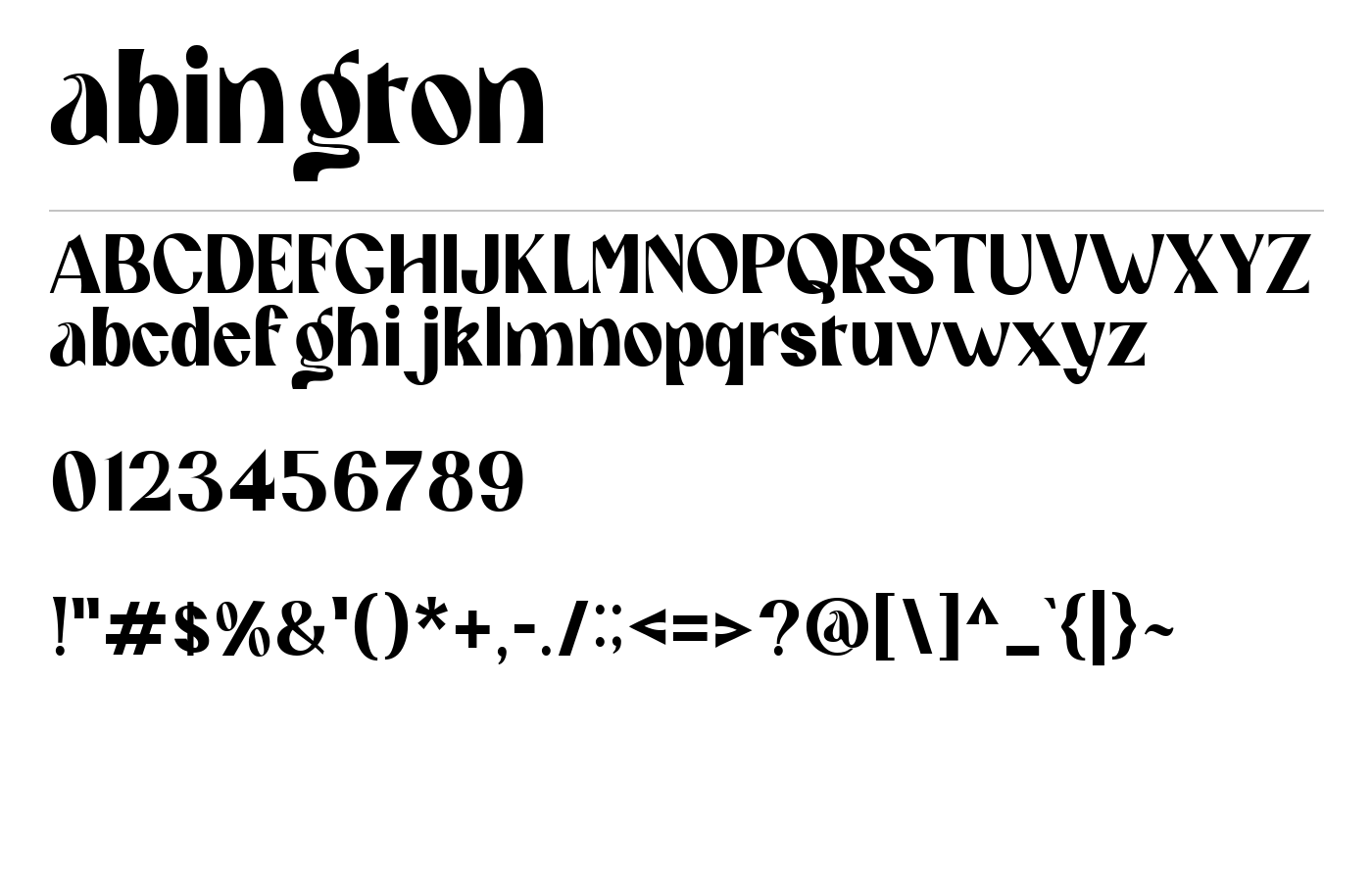
Abington is a bold serif font with a striking blend of sharp and soft edges, featuring high contrast between thick and thin strokes. Its unique, slightly condensed letterforms and artistic details give it a vintage yet modern feel, making it ideal for eye-catching logos, headlines, and editorial design where a touch of elegance and personality is needed.
abington Font
About abington Font